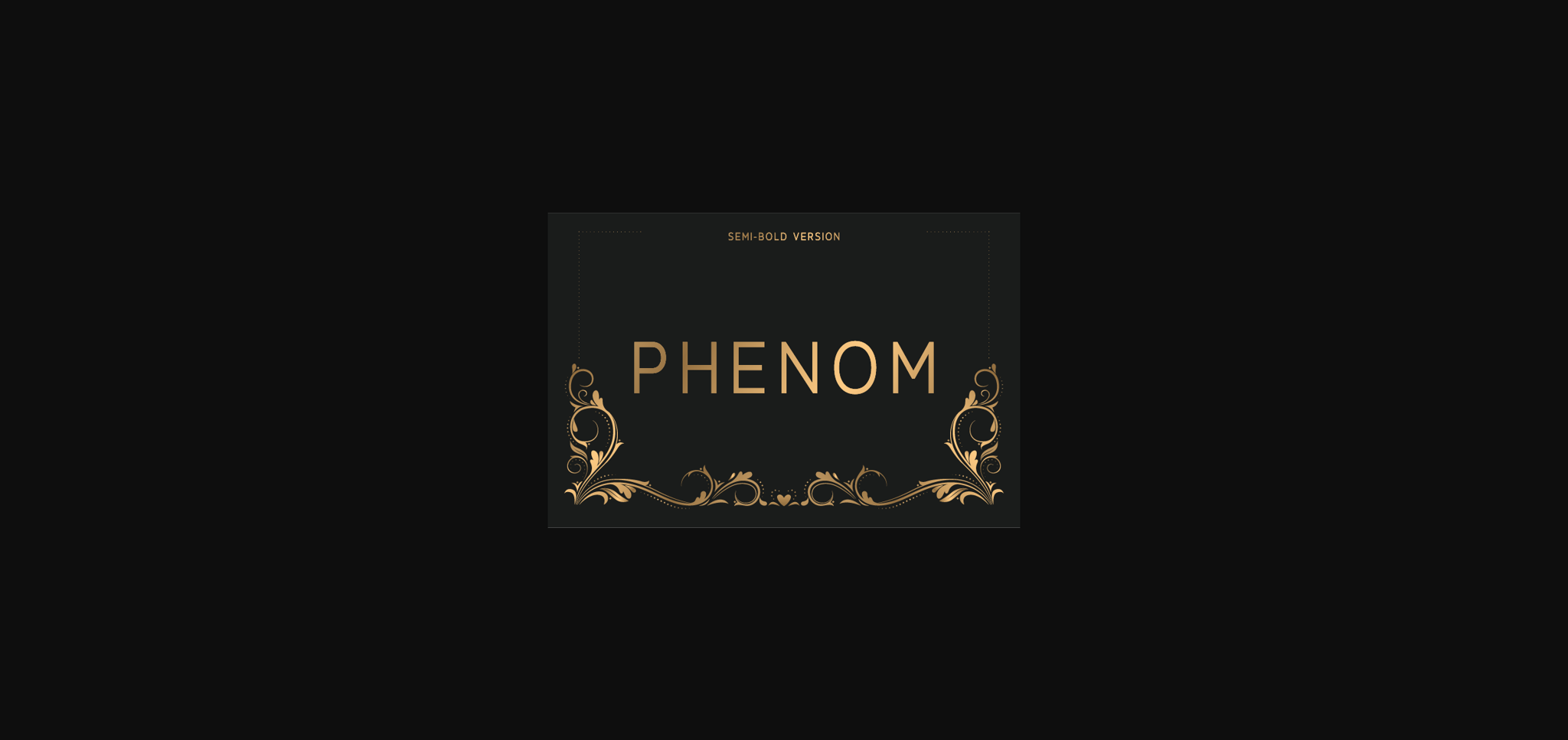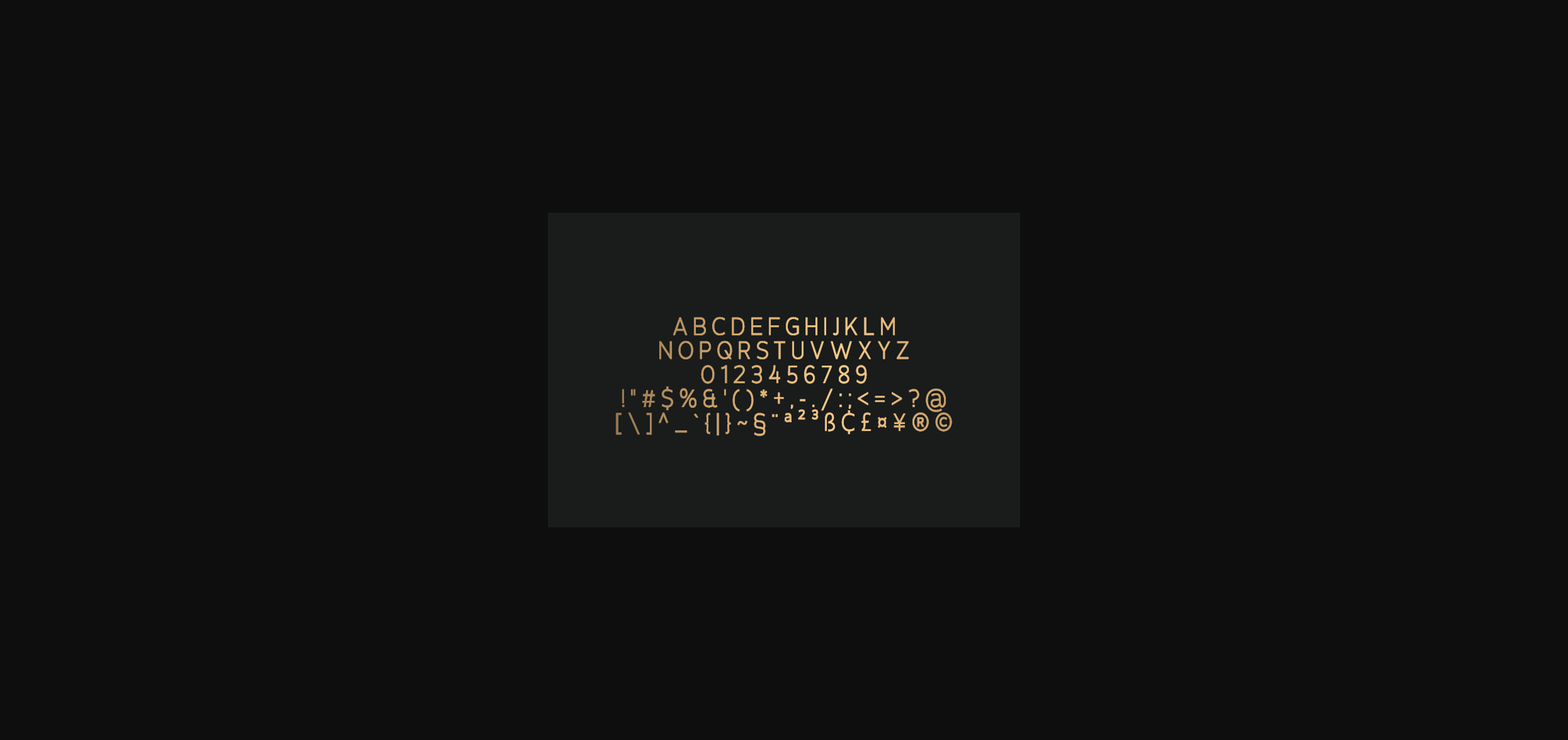
HomeSans Serif FontsPhenom Semi-Bold Font Sans Serif Fonts Phenom Semi-Bold Font FacebookXPinterestWhatsApp 1 of 4 ... Phenom Semi-Bold Font Poster 2... Phenom Semi-Bold Font Poster 3... Phenom Semi-Bold Font Poster 4... About Phenom Semi-Bold Font Phenom is a fancy, contemporary sans serif font. This amazing font includes a regular, and outline version It will complement any design need perfectly with its perfectly balanced mix of the smooth and sharp! DOWNLOAD NOW People also explored Gardenia Font Arundel Font Ghosting Font Sport Ngequize Font Qicka Font Jolly Chaser Font Hello Beach Font Ayulidia Font Bronetto Script 324 0 TagsPhenom Semi-Bold Font Previous articlePhenom Outline Extra Black FontNext articlePhenom Medium Font LEAVE A REPLY Cancel reply Comment: Please enter your comment! Name:* Please enter your name here Email:* You have entered an incorrect email address! Please enter your email address here Website: Save my name, email, and website in this browser for the next time I comment. Personal Use Free Vanchrome Personal Use Free Read more about this font Leorio Personal Use Free Read more about this font Baby Love Personal Use Free Read more about this font BD Spinner Personal Use Free Read more about this font BLOG Free vs Paid Fonts: Why Investing in Premium Fonts Is Worth It Free vs Paid Fonts: Why Premium Fonts Are Worth It in 2025 The debate of free vs paid fonts continues in the design world. While... How to Install and Use Fonts on Windows, macOS, and Web Projects Fonts That Capture the Spirit of New York City Where to Buy American Fonts Online in 2024